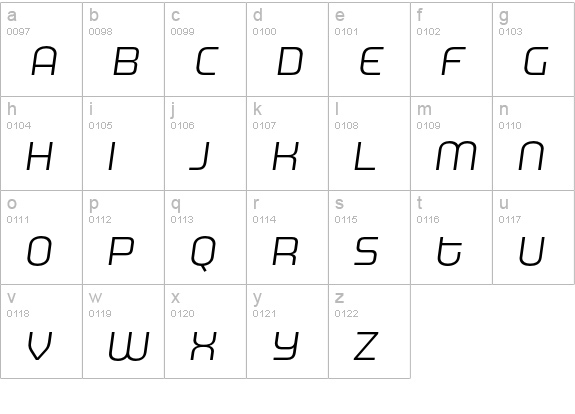
MorganBig LightItalic Font Details
Introducing MorganBig LightItalic font, a sleek and elegant typeface that exudes sophistication and modernity. With its slender and graceful letterforms, this font is perfect for adding a touch of refinement to your designs. The subtle italic slant adds a sense of movement and dynamism, making it ideal for conveying a sense of elegance and style. What's even better is that MorganBig LightItalic font is completely free to download at FontsMarket.com. Whether you're working on a branding project, creating invitations, designing a website, or crafting any other creative endeavor, this font is sure to elevate your work to the next level. Don't miss out on the opportunity to enhance your designs with this exquisite typeface. Download MorganBig LightItalic font today and let your creativity shine!